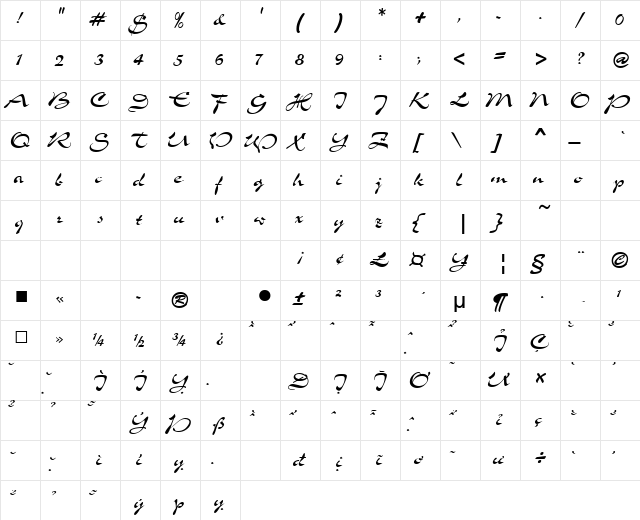
VNI-Slogan Normal Font Preview
VNI-Slogan Normal
Design Context for VNI-Slogan Typeface
VNI-Slogan is a composed and adaptable typeface that performs quietly and consistently across a wide range of design contexts.